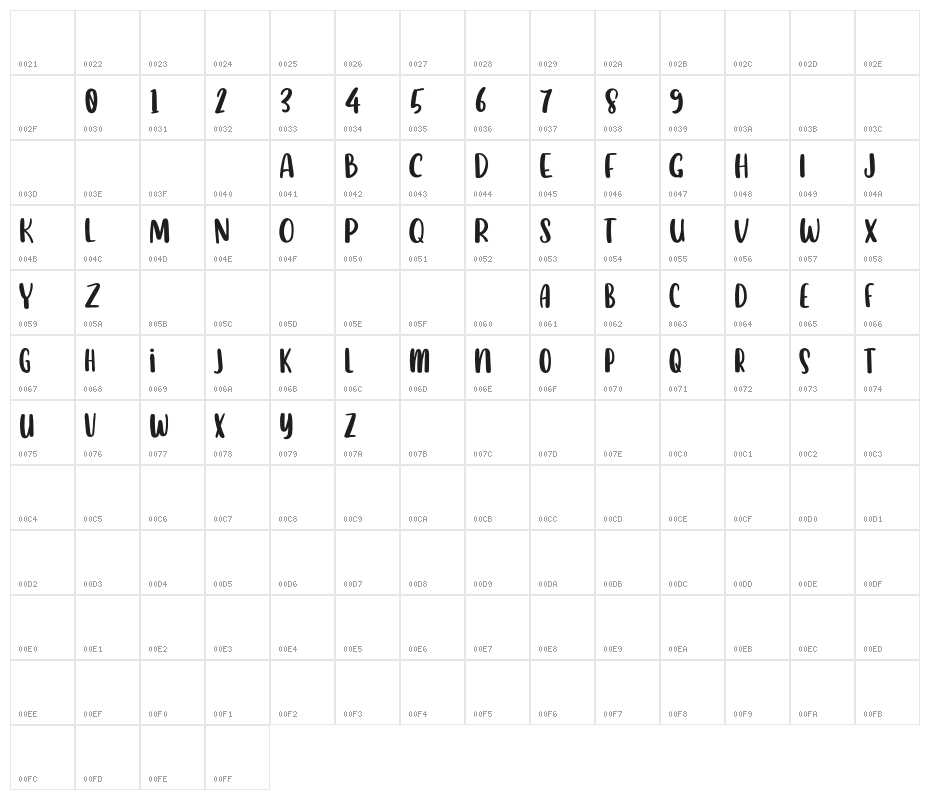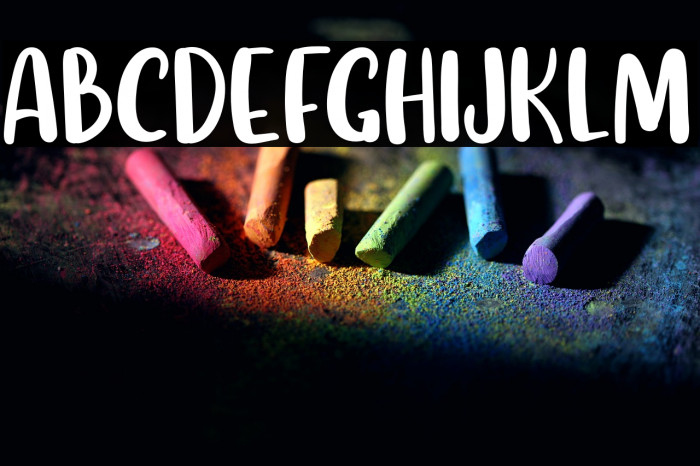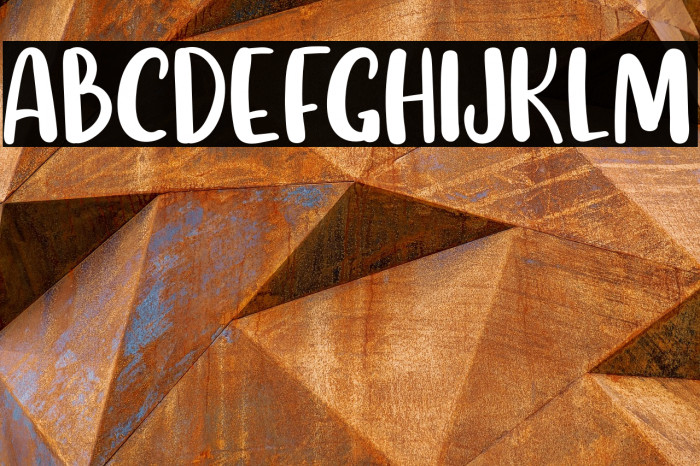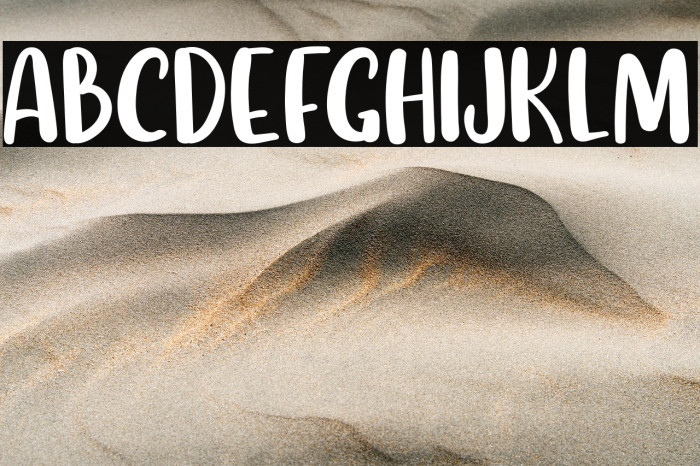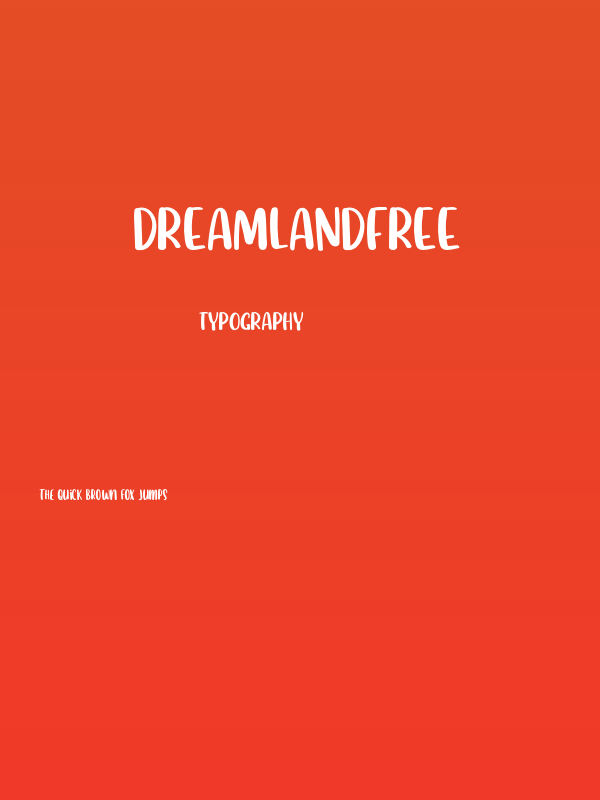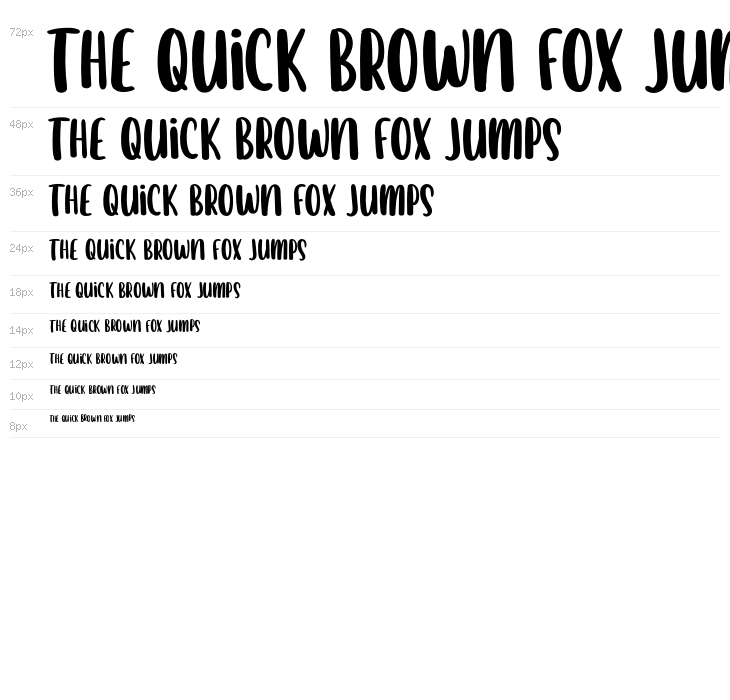
DreamlandFREE Font
DreamlandFREE Description
This font features a playful and bold handwritten style, characterized by its smooth curves and rounded edges. The letters are slightly condensed, giving it a compact appearance while maintaining readability. The uppercase and lowercase letters share a consistent style, with a slight slant that adds a dynamic feel. The numbers are equally bold and maintain the same playful aesthetic. This font is perfect for projects that require a friendly and approachable look, such as children's books, casual branding, or creative posters. Its unique style makes it stand out, while its readability ensures it remains functional.
| Proposed Projects | Ideal for children's books, casual branding, creative posters, and playful designs. |